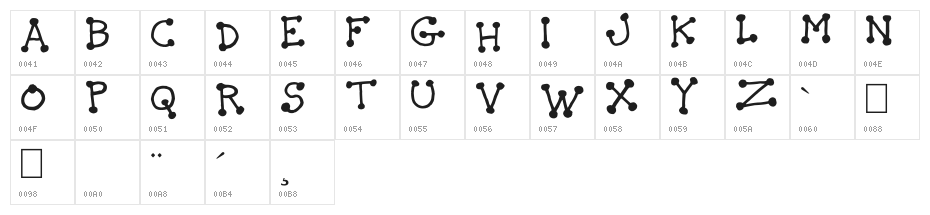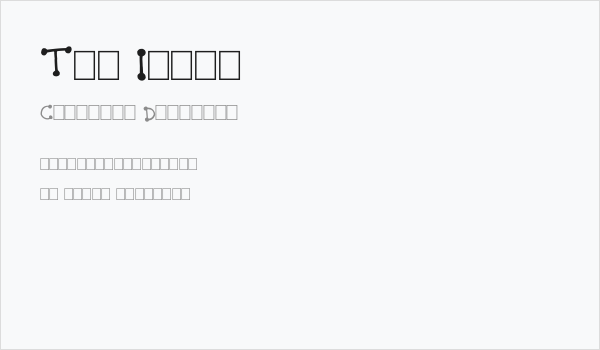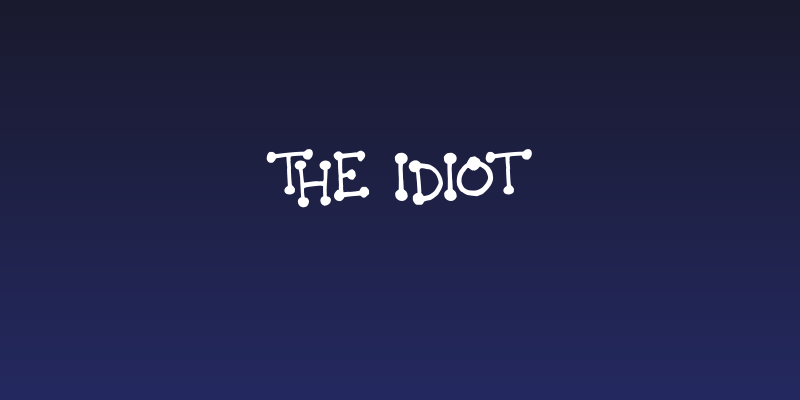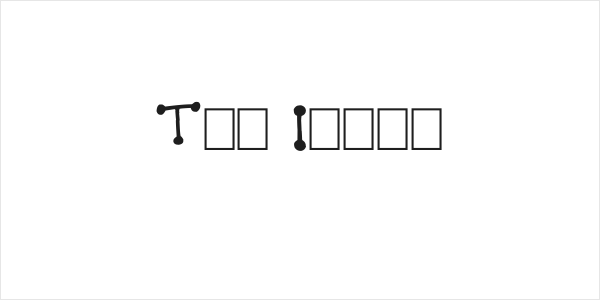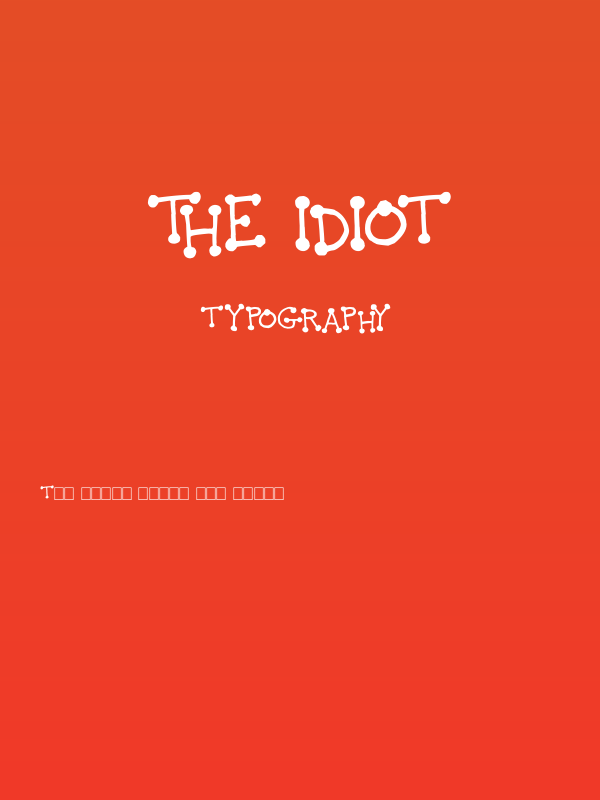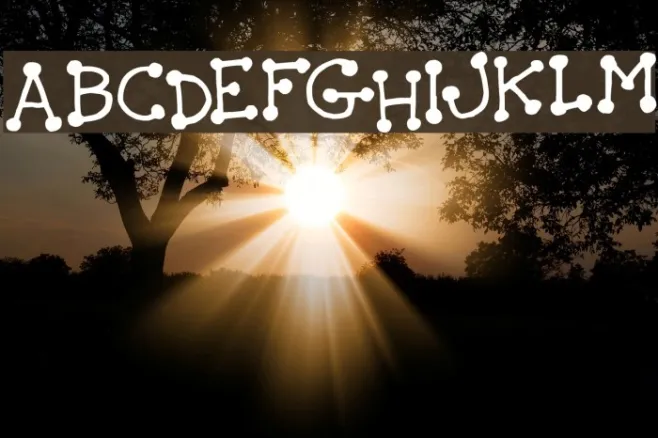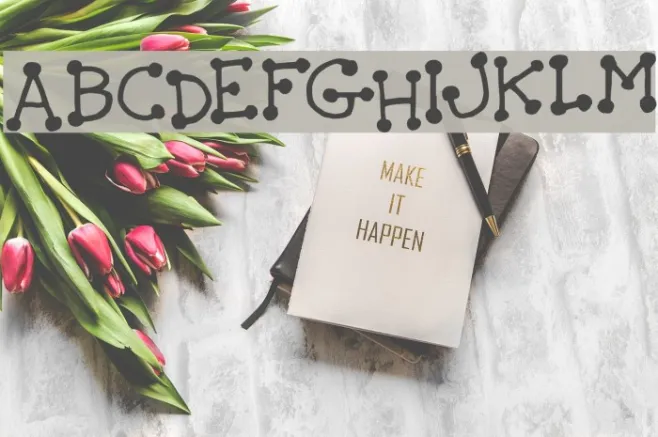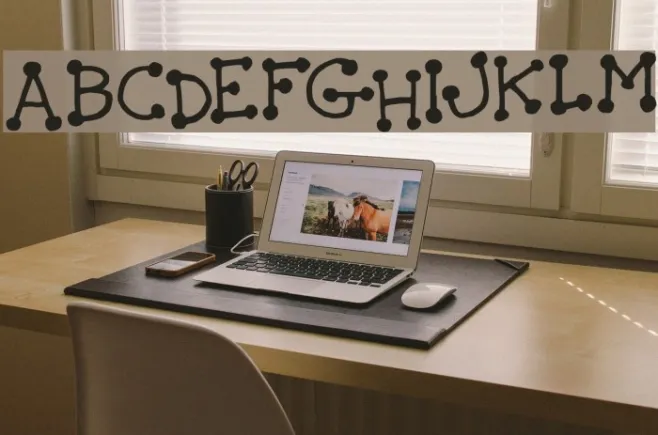
The Idiot Font
The Idiot Description
This playful and whimsical font features a unique design where each character is formed by connecting dots with lines, creating a sense of movement and fun. The rounded dots at the ends of each stroke give it a friendly and approachable feel, while the consistent thickness of the lines maintains readability. The font's quirky style makes it ideal for creative projects that require a touch of humor or lightheartedness. Its distinct appearance ensures that it stands out, making it suitable for eye-catching headlines or titles. The uniformity in the design across both uppercase and lowercase letters, as well as numbers and special characters, ensures a cohesive look in any text composition.